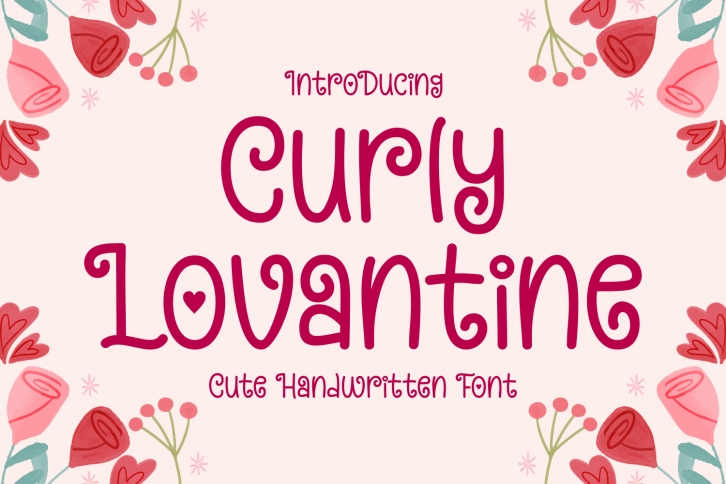
Curly Lovantine is a delicate, charming and flowing display font. It maintains its classy calligraphic influences while feeling contemporary and fresh. Fall in love with it and bring your projects to the highest levels!